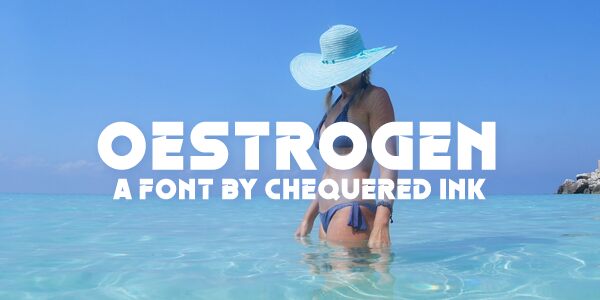
Oestrogen
Oestrogen is a bold, futuristic display font that commands attention. Designed by NAL, this striking typeface exudes a sense of modernity and innovation. Its angular, geometric letterforms convey a sleek, technological aesthetic, making it an ideal choice for sci-fi, tech, or avant-garde design projects. The font's strong presence and dramatic personality lend themselves well to headlines, branding, and eye-catching visual compositions.
Oestrogen's unique character seamlessly blends function and form, offering designers a powerful typographic tool to bring their futuristic visions to life.
Oestrogen by Chequered Ink.